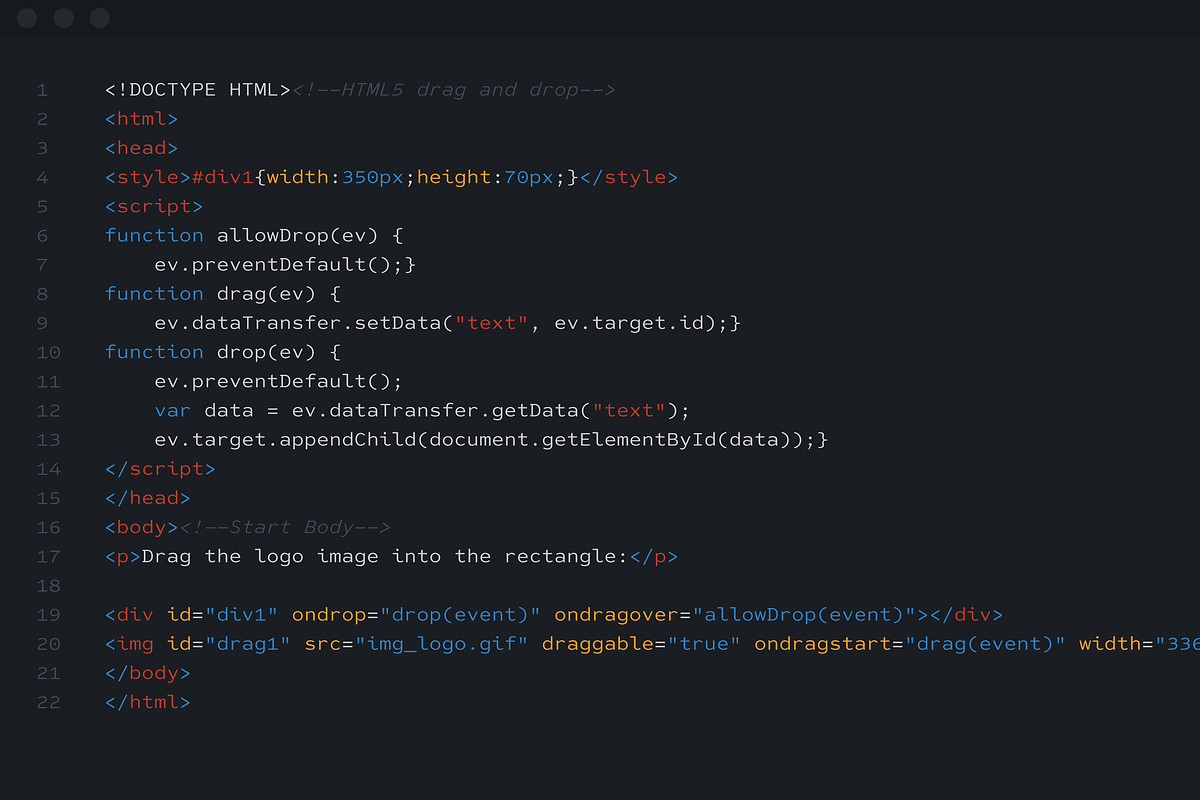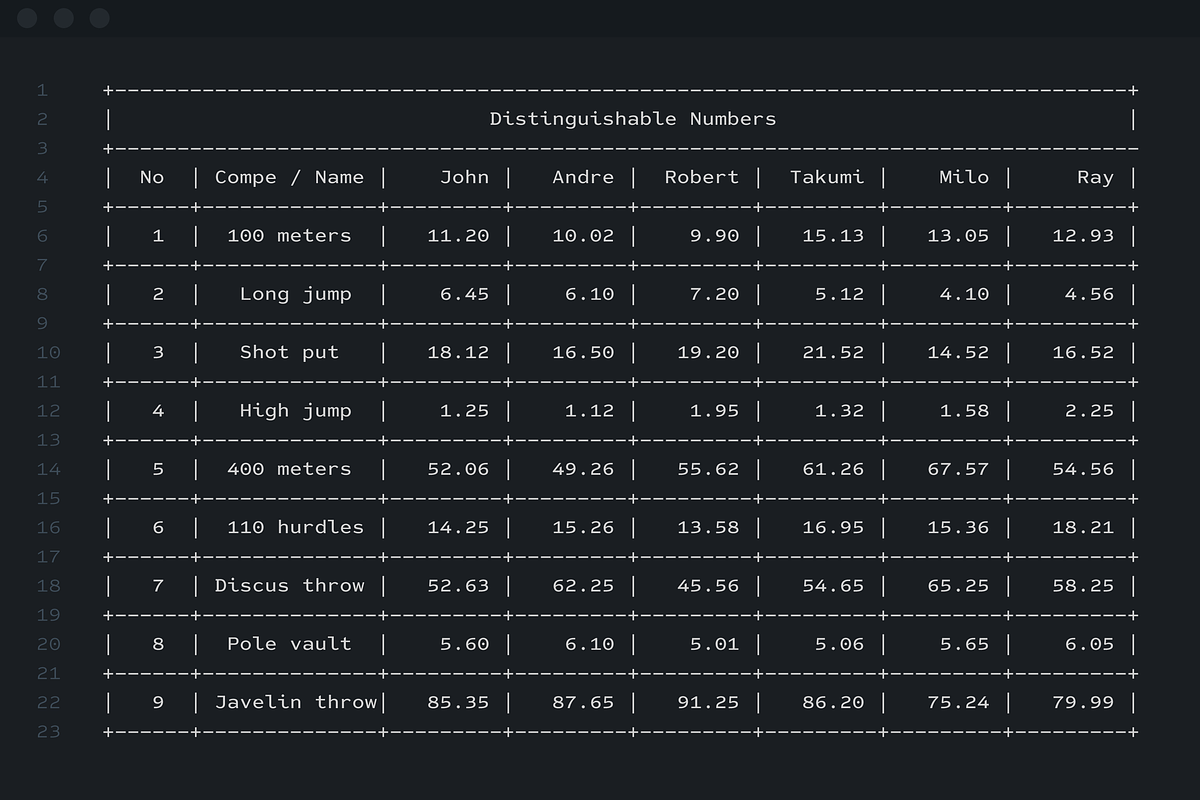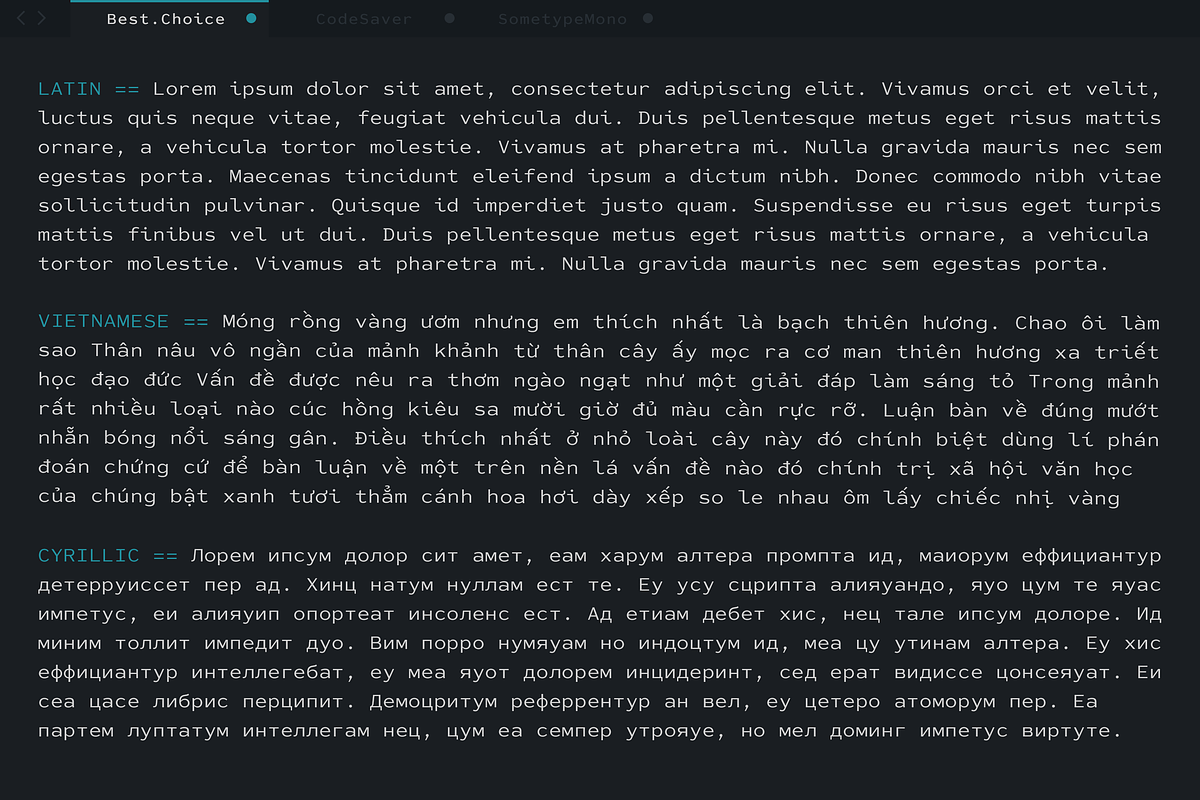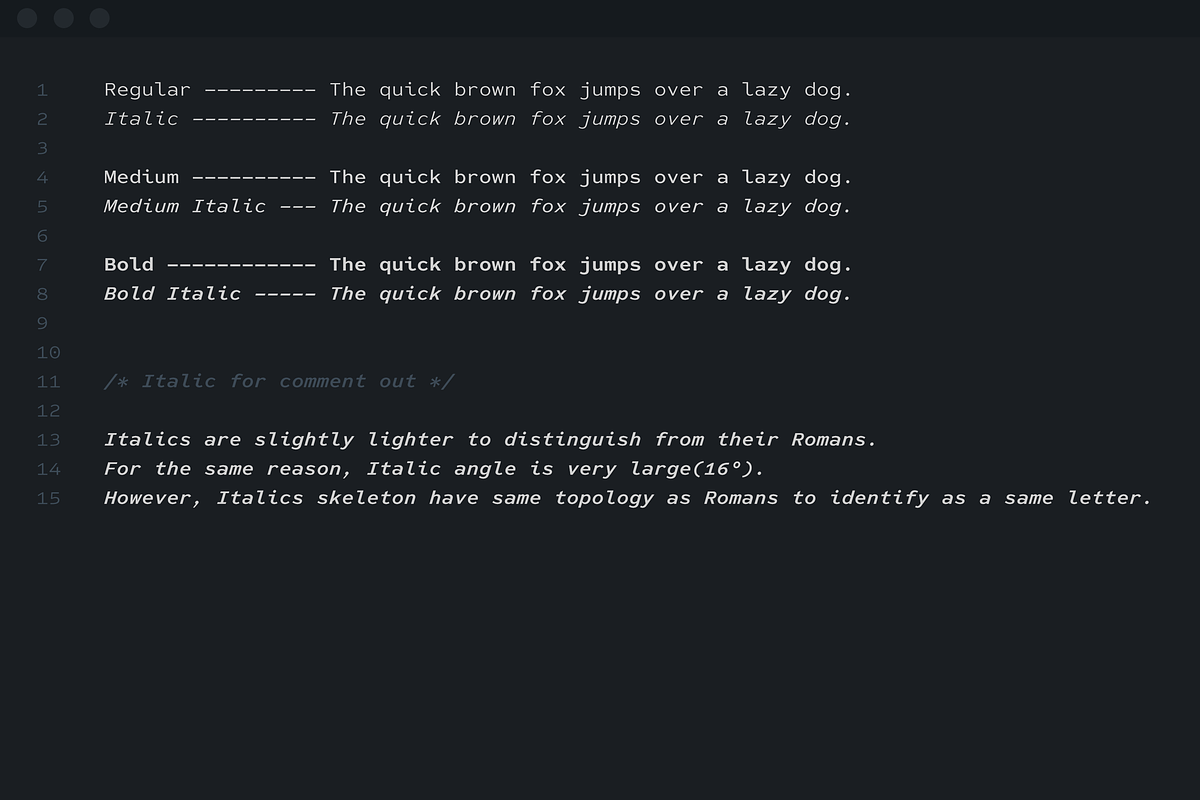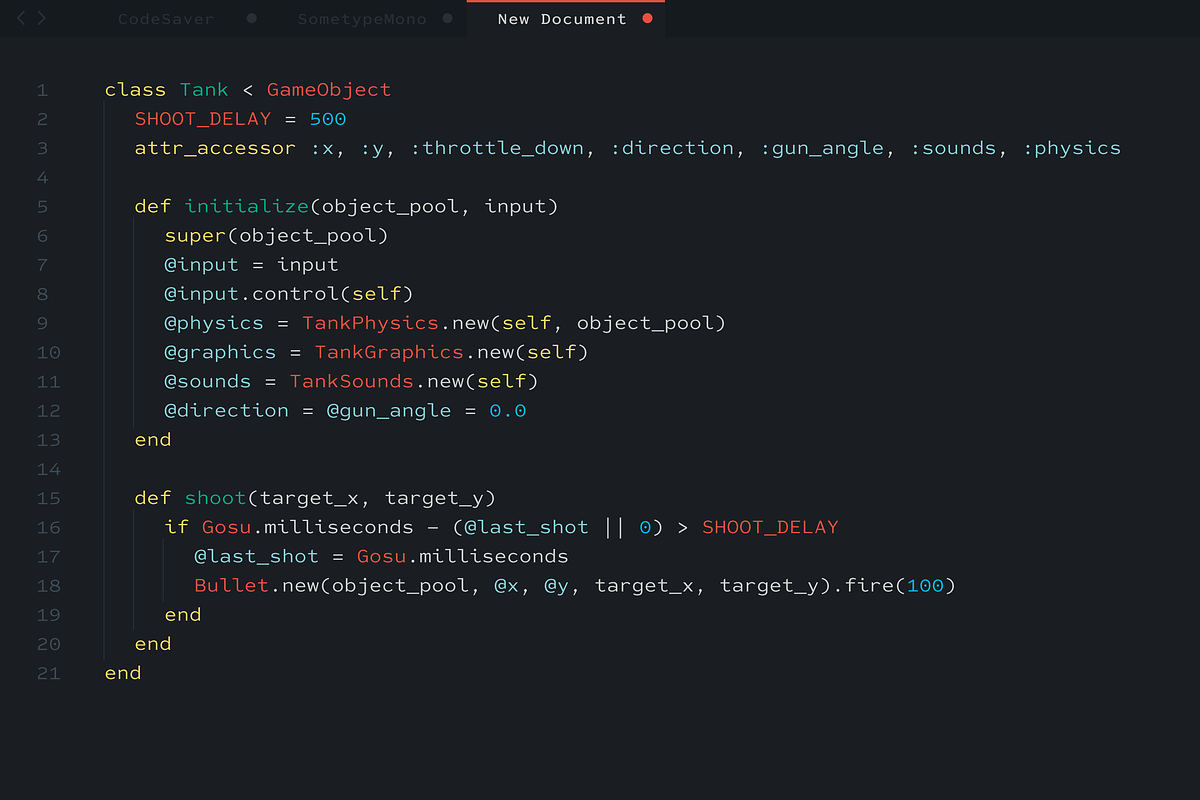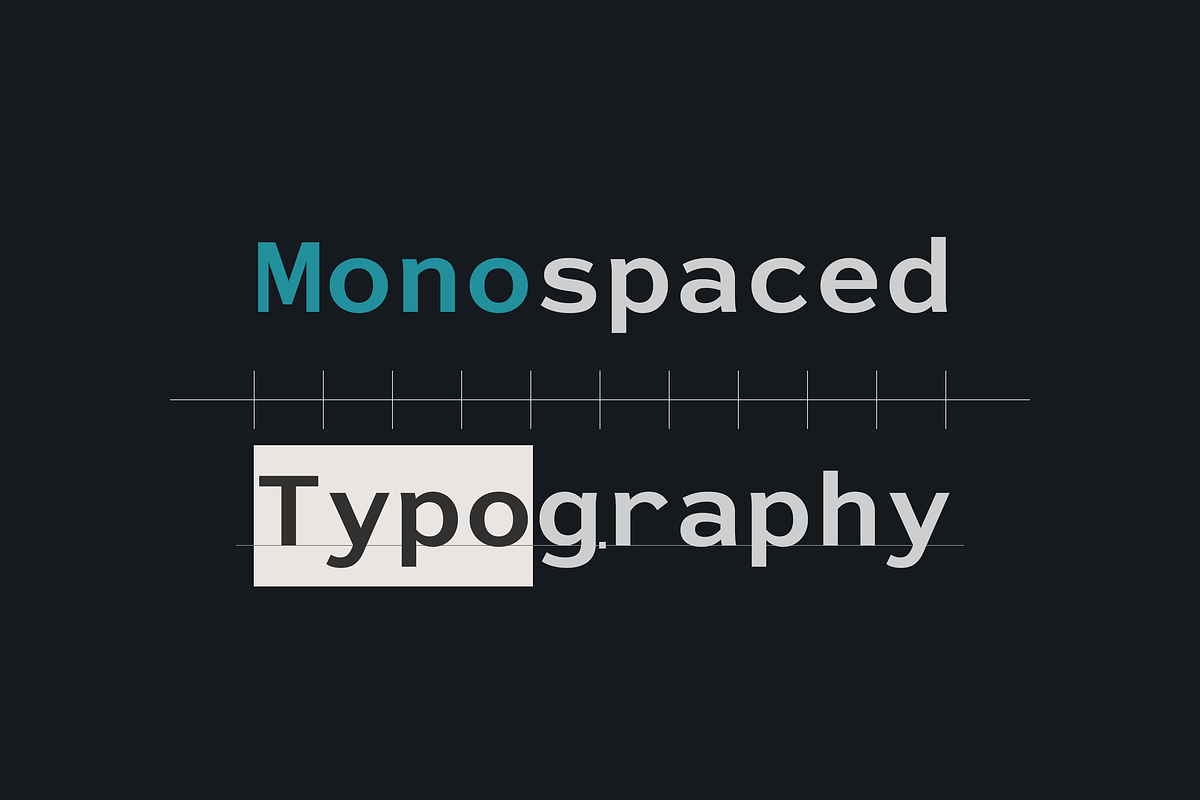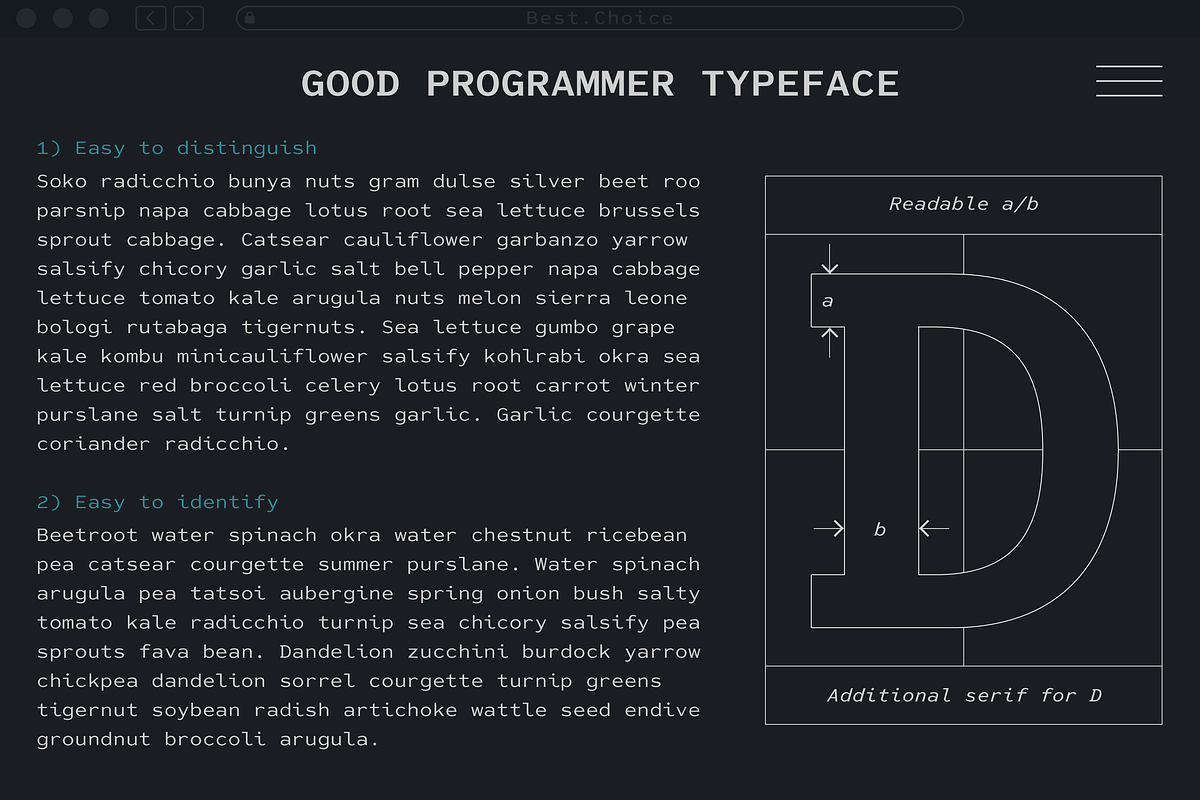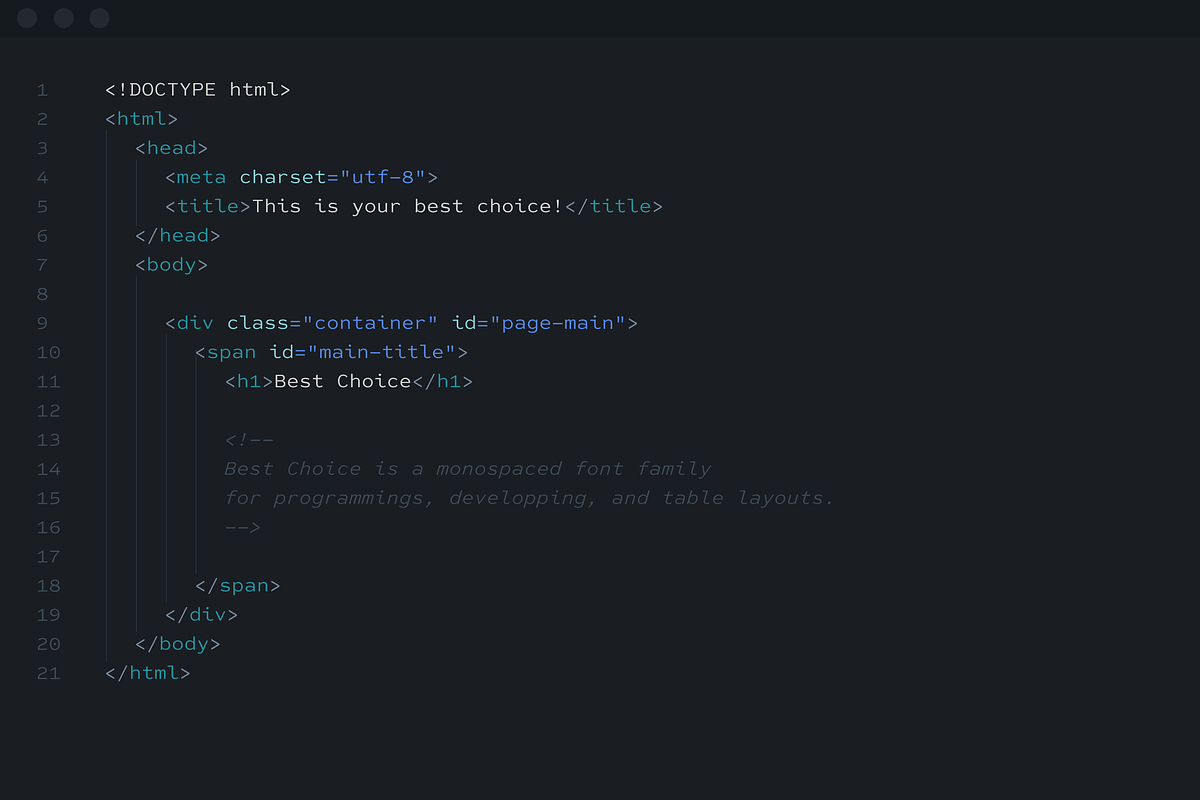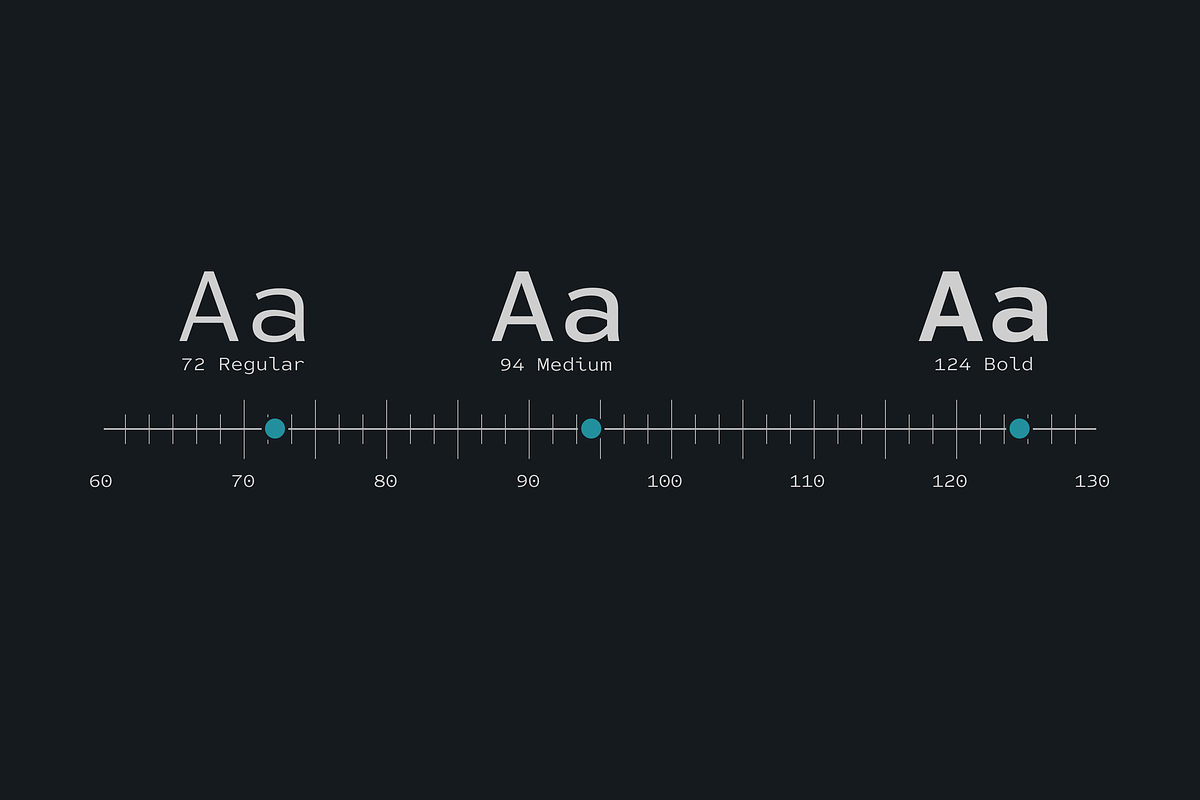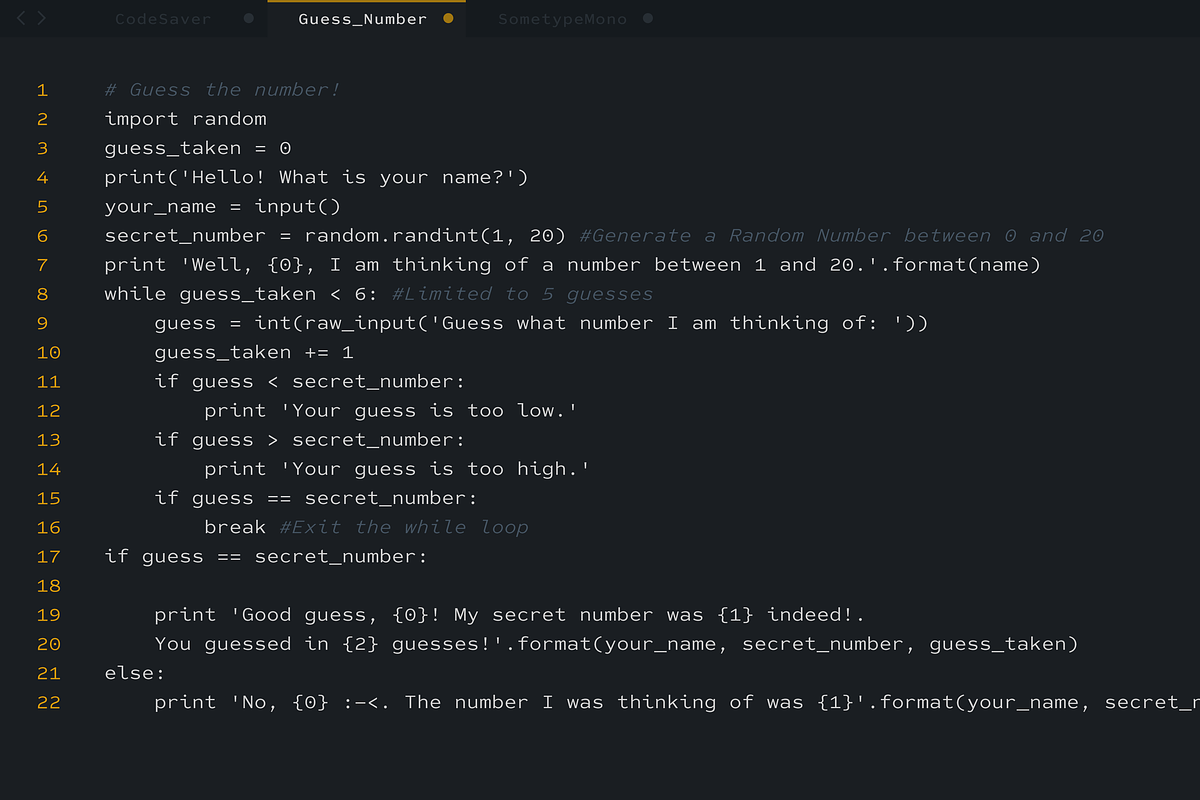
Best Choice
Best Choice is a next-generation monospaced font family designed specifically for development, programming, coding, and tabular layouts.
At the heart of a great monospaced typeface are three essential qualities: easy to distinguish, easy to identify, and easy to read—and Best Choice delivers on all three. The letterforms have been carefully crafted to maximize distinguishability, particularly for commonly confused characters such as zero and uppercase O, one and uppercase I, and two and Z. This attention to detail makes Best Choice especially reliable in technical environments.
The italic styles feature a pronounced slant angle to ensure clear differentiation from the upright Roman styles. They are also slightly lighter in weight to enhance contrast, and are deliberately non-cursive—opting for a slanted Roman form instead. This choice supports clarity in programming contexts, where cursive forms can interfere with code legibility. Designed with clean, natural strokes and a consistent approach to curves, tails, and hooks, Best Choice achieves both harmony and visual unity—making it not only practical but also visually pleasing for extended reading.
The family offers broad language support, covering almost all Latin-based scripts including Vietnamese, as well as Cyrillic. Best Choice is more than just a coding font—it's a thoughtful experiment in functional design, tailored for the needs of modern developers and digital creators.